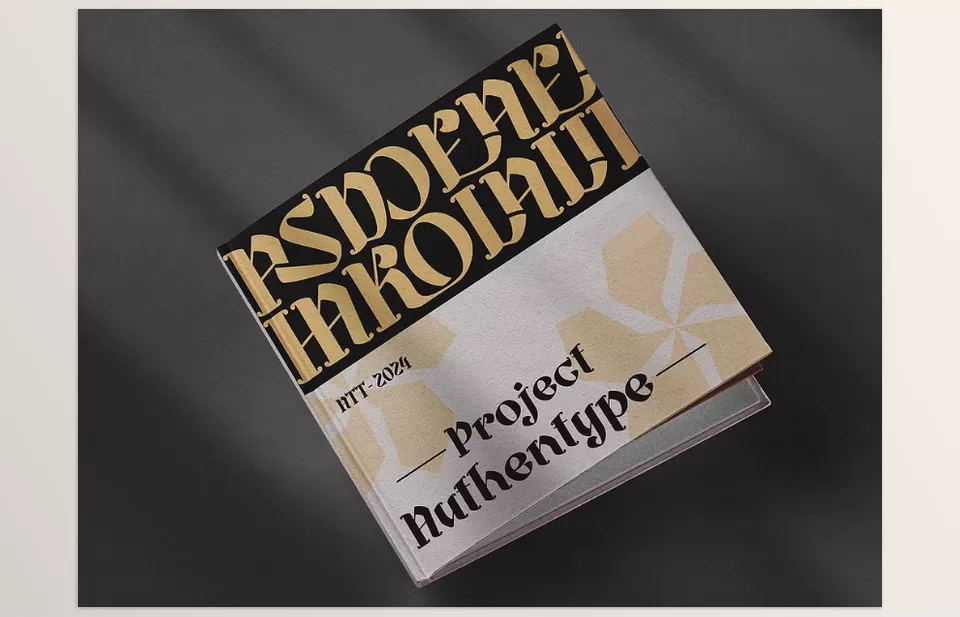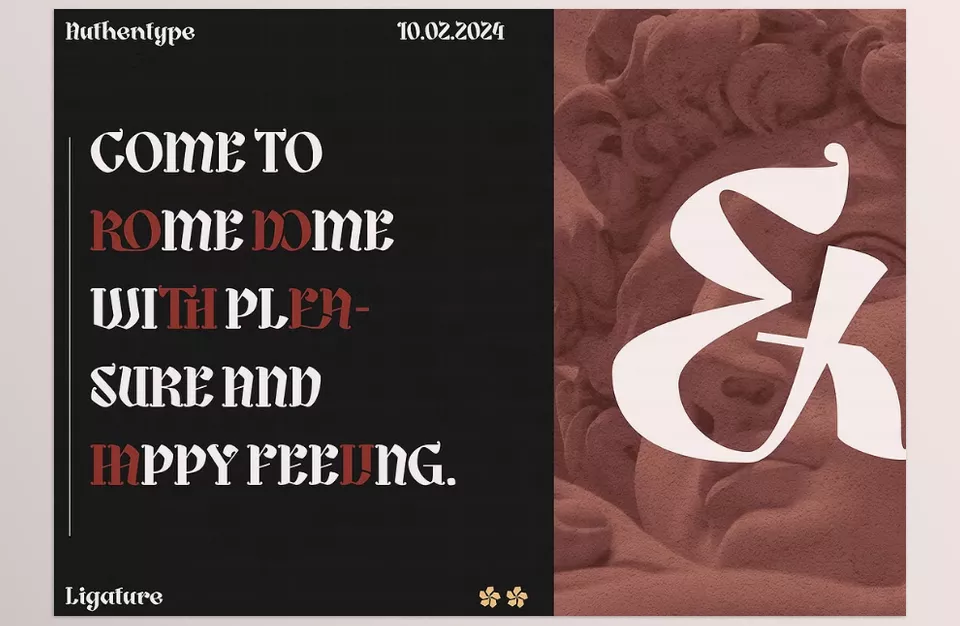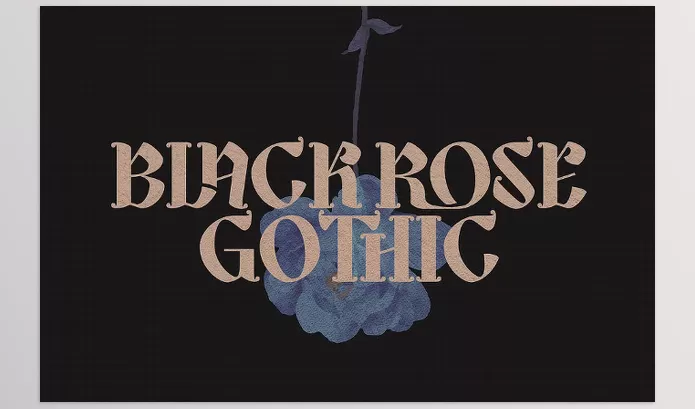
The Black Rose Gothic Font by AuthenType captures it all. It gives vintage sophistication a run for its money since it’s one of the best gothic fonts in creative projects. Black Rose Gothic has an elegance that is dramatic and refined and includes advanced features such as multilingual support, swashes, and ligatures, allowing it to capture a wide range of creative projects.
AuthenType – Black Rose Gothic Font Features
• Elegant Gothic Design: The marriage of modernity and mid-evil fantasy sets this illuminating font apart.
• Intricate Details: Setting a unique artistic tone with extensive coverage of stylistic ligatures and crafted swashes.
Black Rose Gothic Font Overview
Image 1: Seamlessly blends dark elegance with a vintage allure.
Black Rose Gothic Font - seamlessly blends dark elegance with a vintage allure.
Image 2: Features meticulously crafted swashes, stylistic sets, and ligatures, lending each letter a unique, artistic flourish.
Black Rose Gothic Font - features meticulously crafted swashes, stylistic sets, and ligatures, lending each letter a unique, artistic flourish.